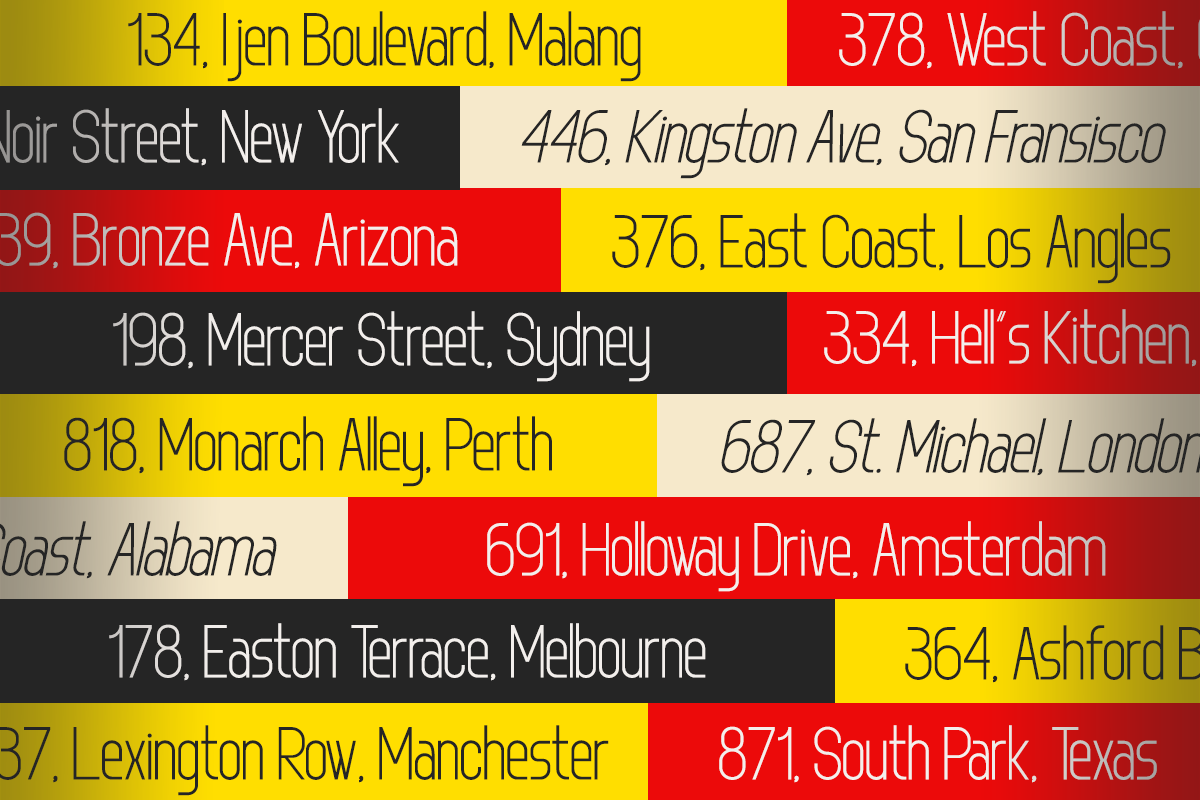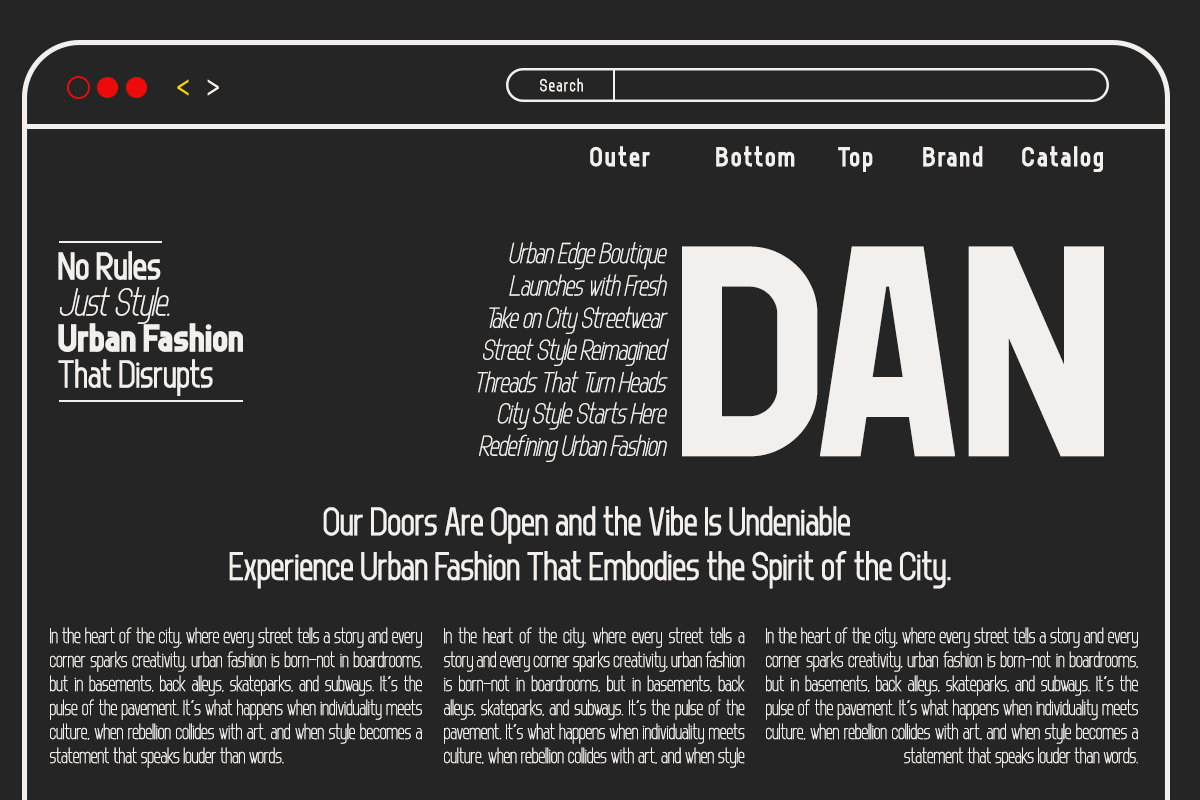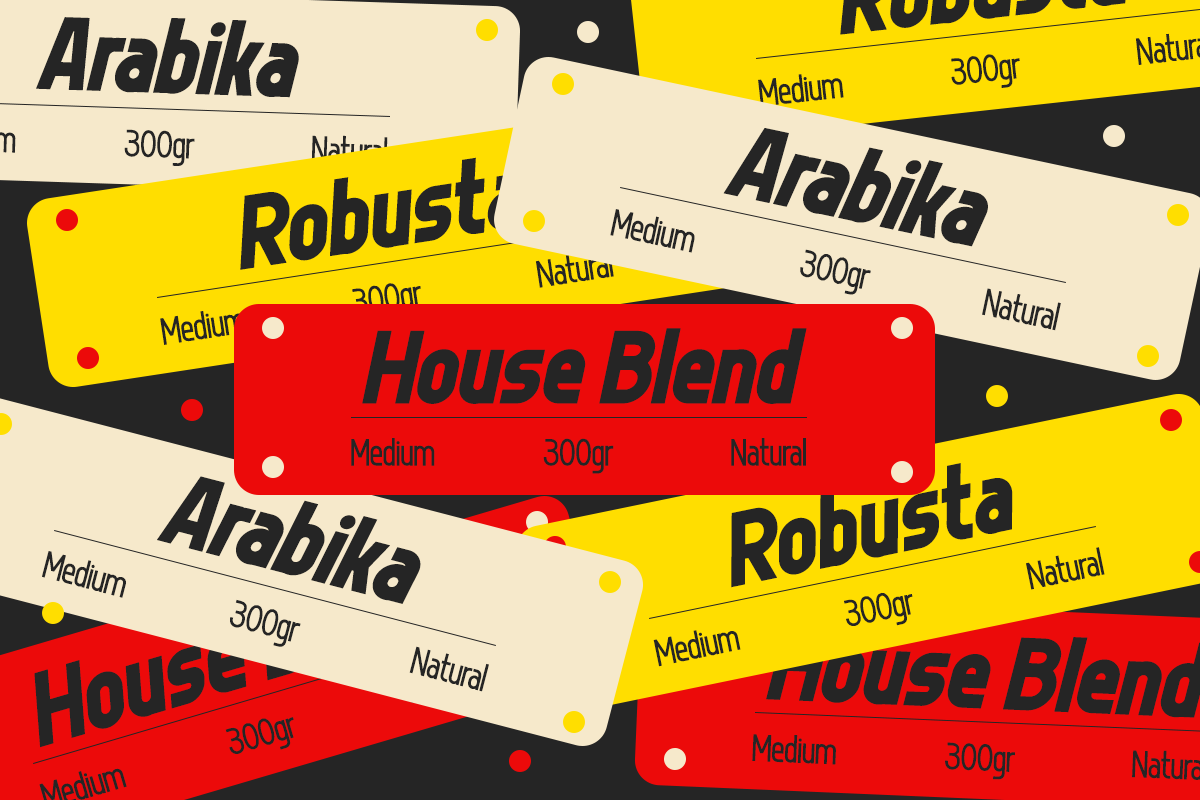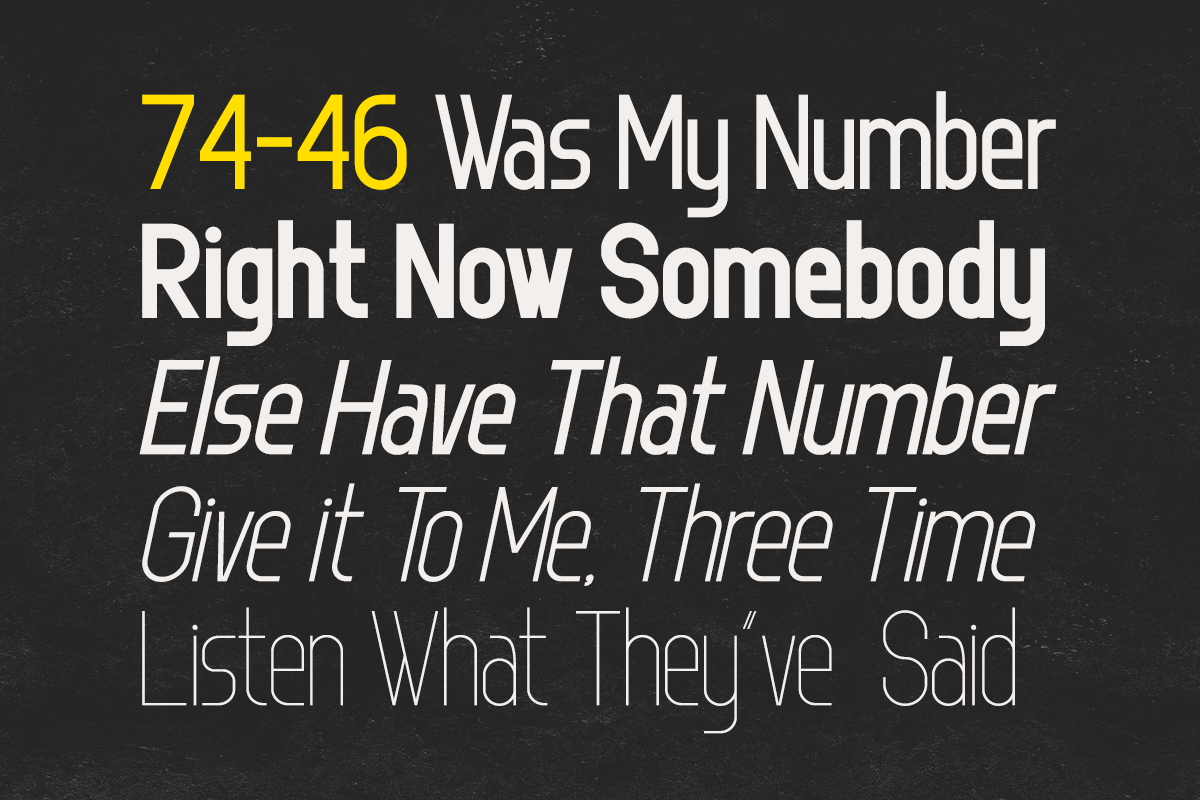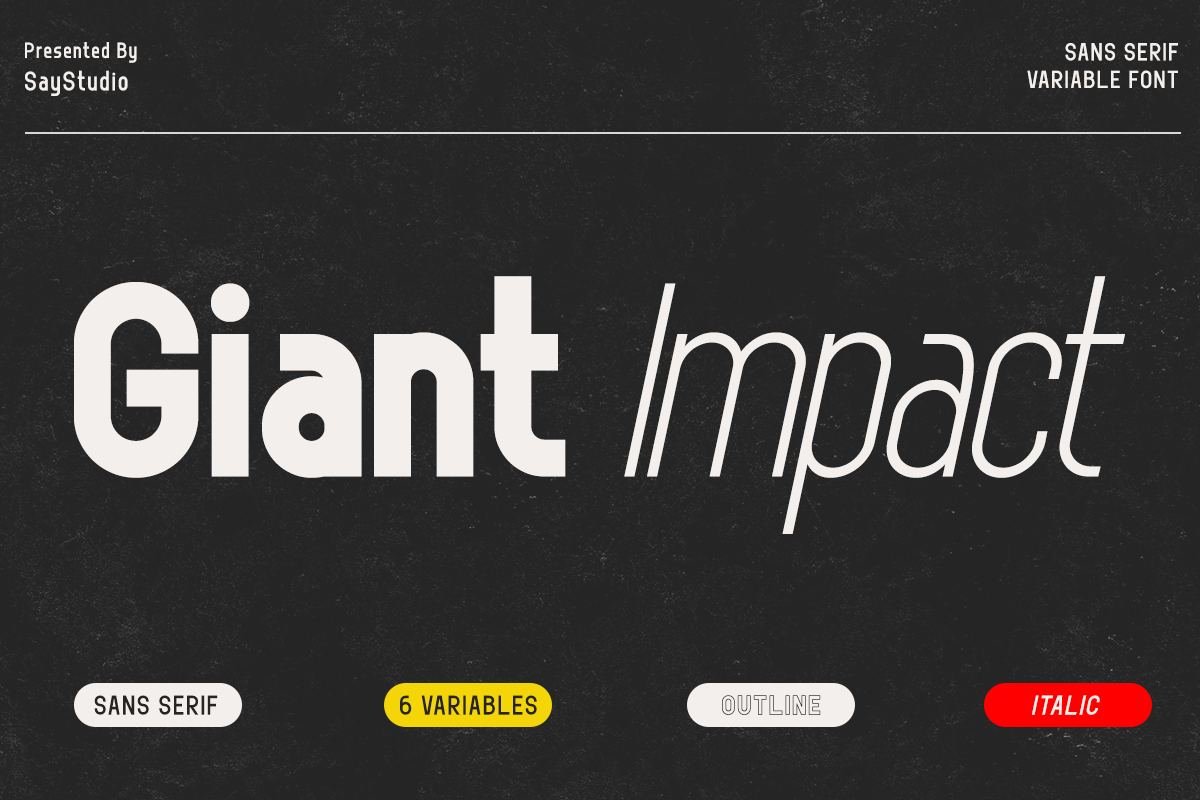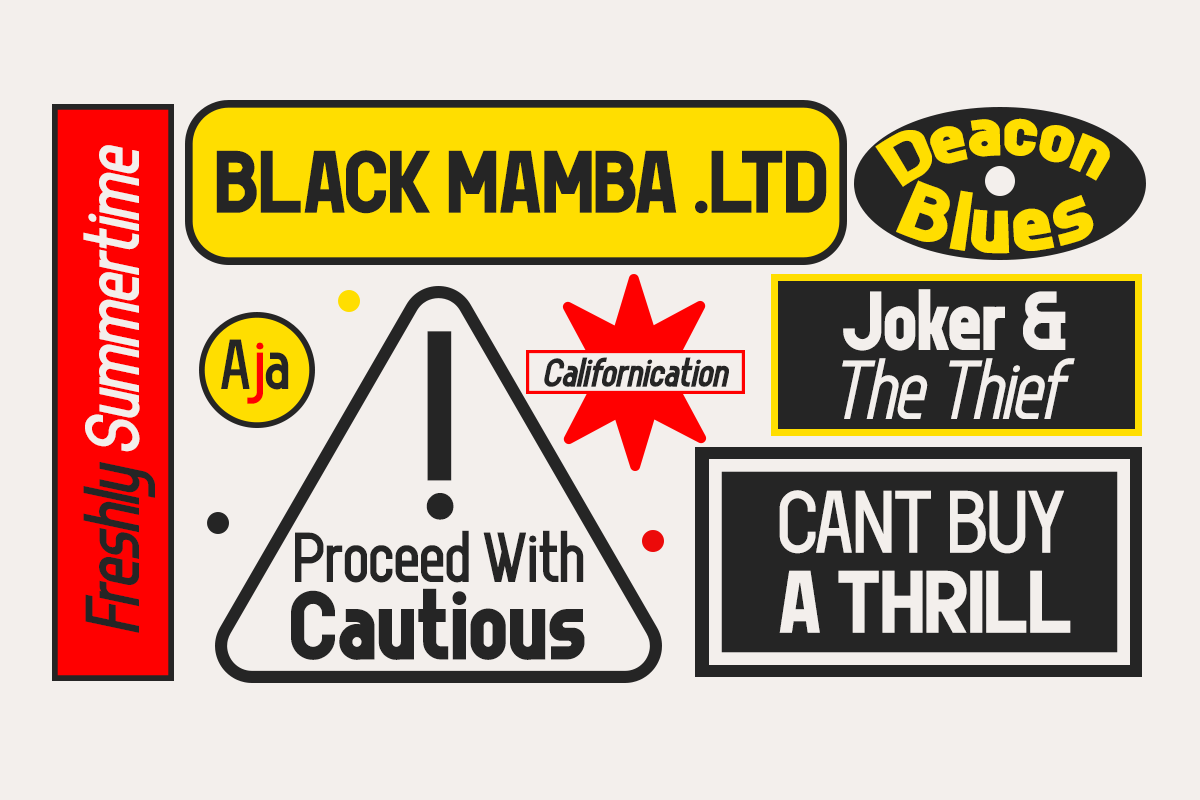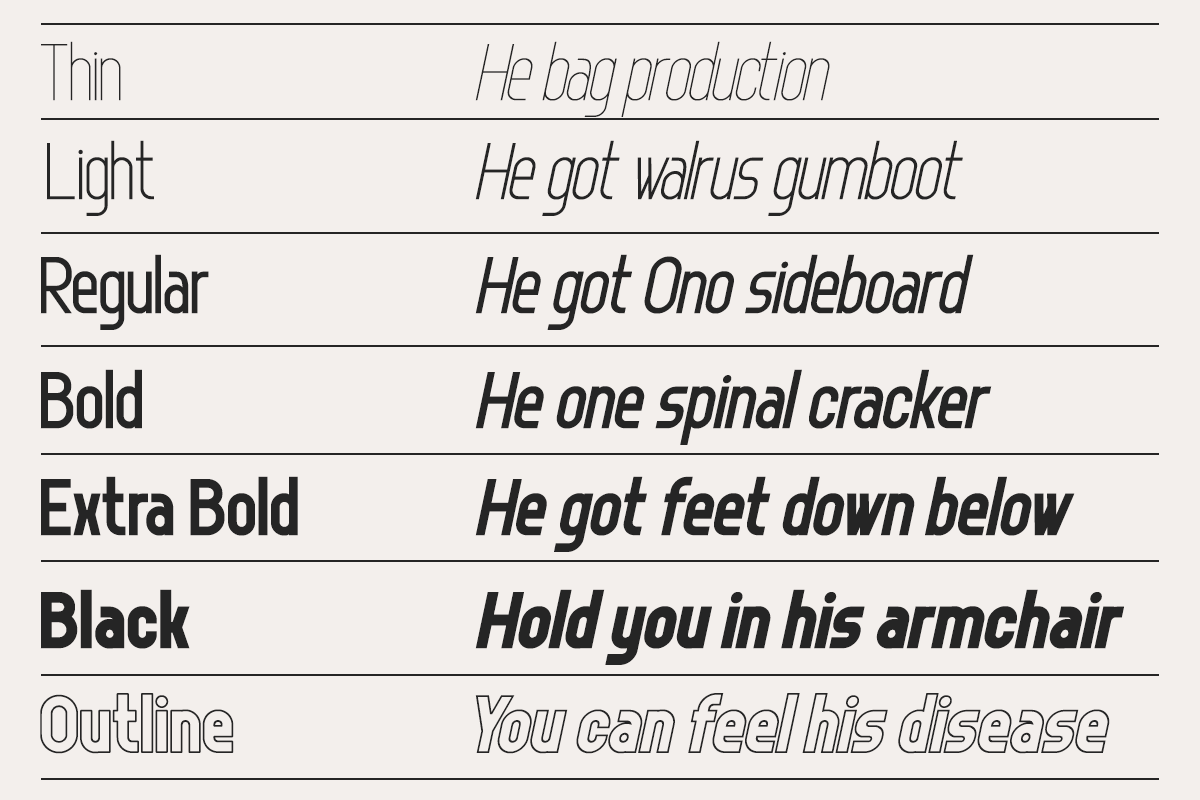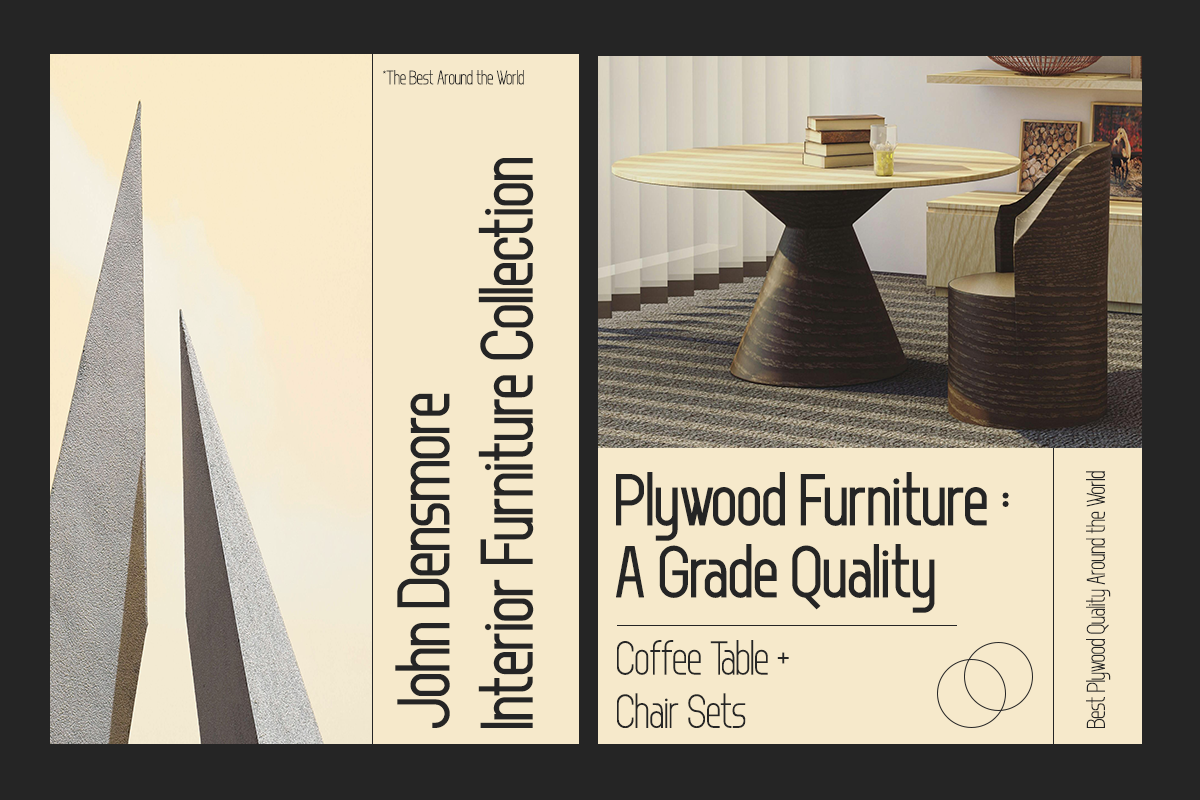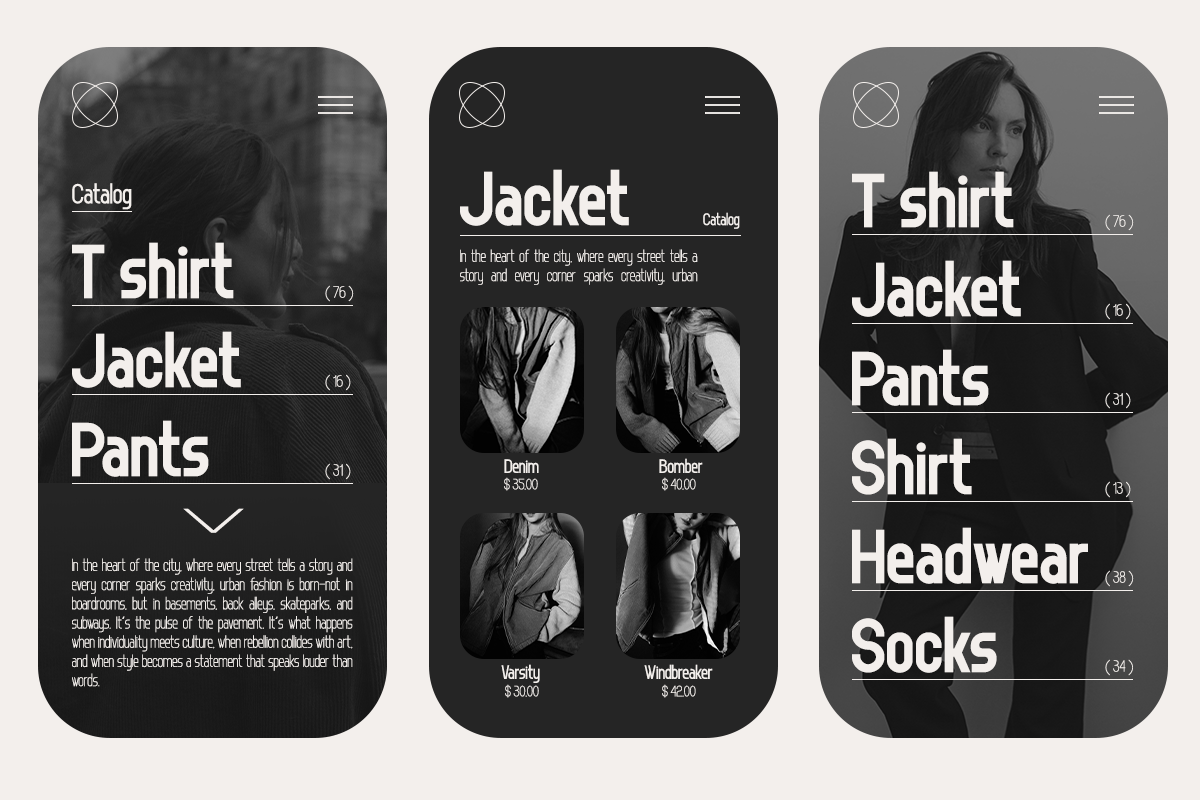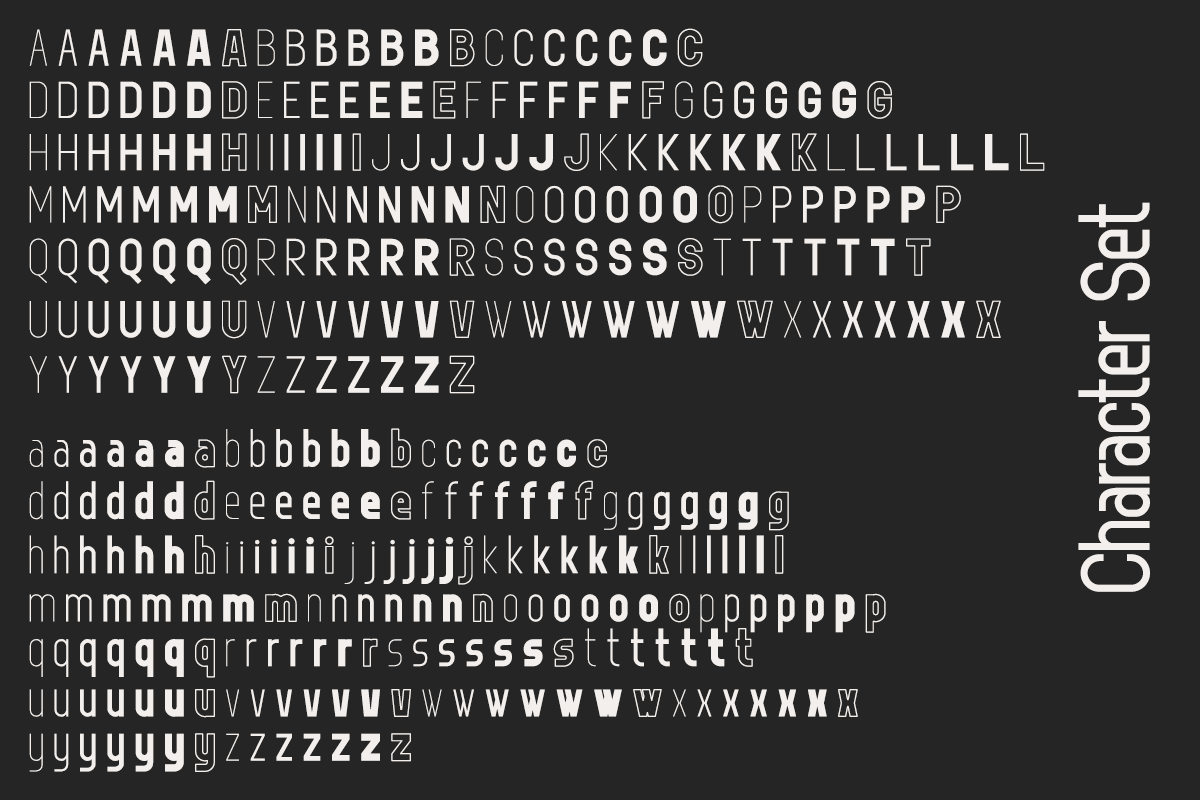
Giant Impact - Grotesque Sans Font
Giant Impact is a grotesque with 6 variable weights, Italic, and outline style. The combination of different heights and weights provides versatility in any text usage and opens a whole new world of possibilities. the weight variation and delivers a full array of six instances, including all weights ranging from thin to heavy. A distinct characteristic of this variable typeface is the capability to vary the height, simply maintaining constant the weights, thin and heavy. Giant Impact perfect for titling, contemporary branding, web design, UI/UX design, clothing, large print formats.